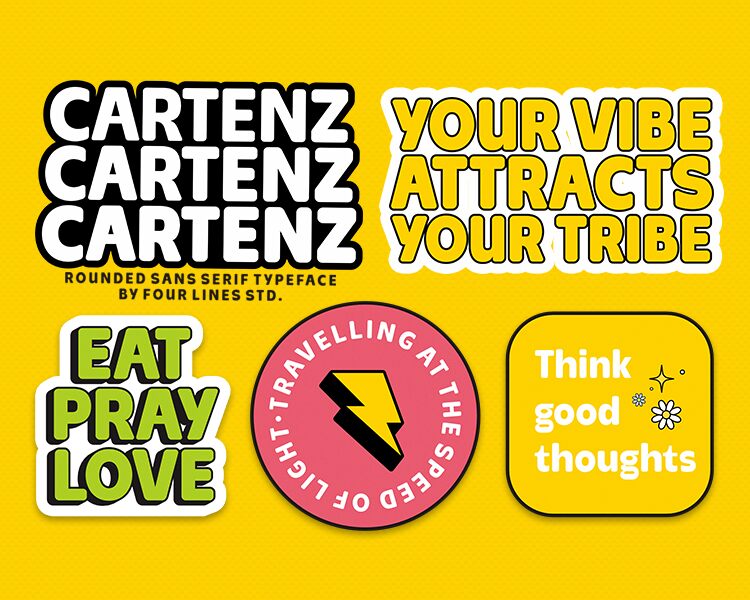
Cartenz font family designed by Four Lines is a contemporary sans serif type display font family made free for personal use. The whole family contains 3 separate font styles with similarities and differences that connect them as a unit but keep each unique in its own way. Cartenz is defined by its youthful energetic nature which when combined with even the simplest design upgrade it visually and effectively.
Create stunning magazine covers, presence-heavy posters, brochures and flyers, or branding presentations with sensational logotypes for the whole world to witness. And for a larger audience, this approachable font can be used for website designs, applications, ads, and ending credit scenes for friendly movies meant for all ages and backgrounds.